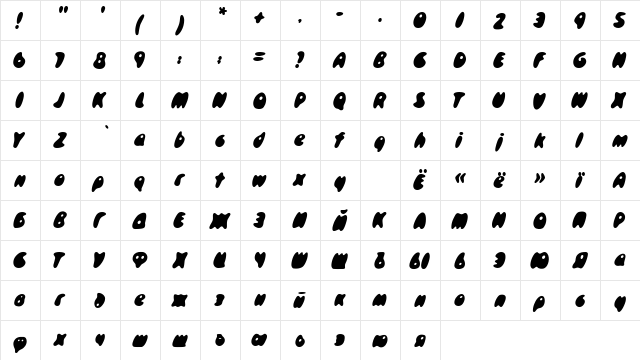
Skidoos Cyr Regular
Design Context for Skidoos Cyr Typeface
Skidoos Cyr is a composed and adaptable typeface that performs quietly and consistently across a wide range of design contexts.